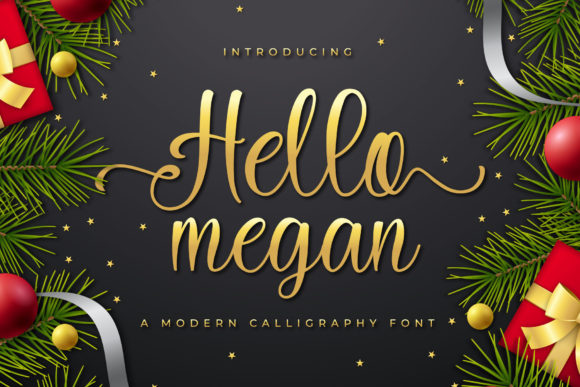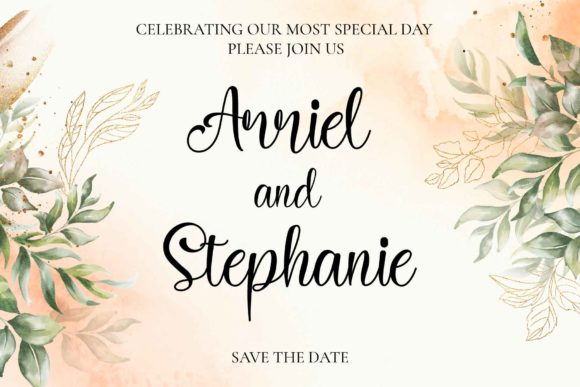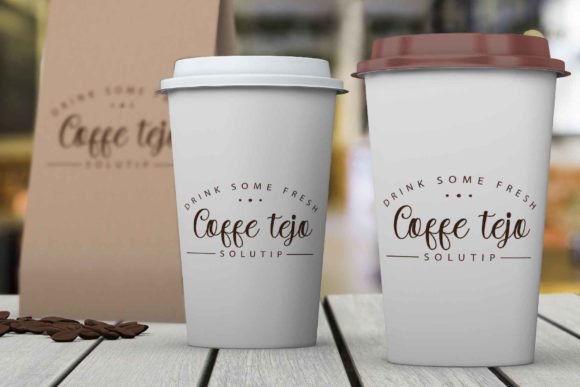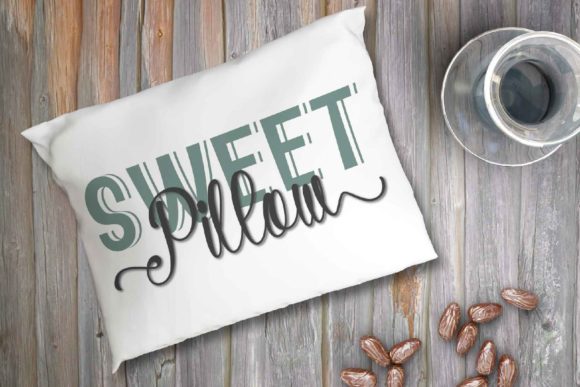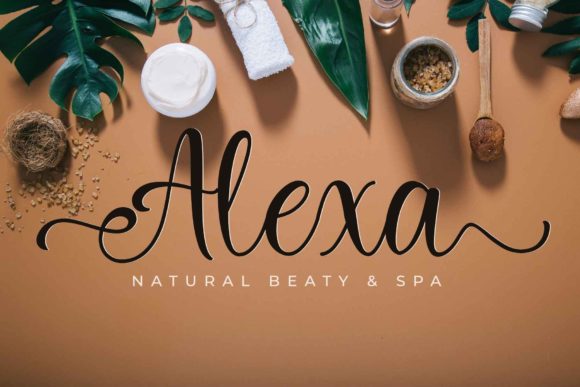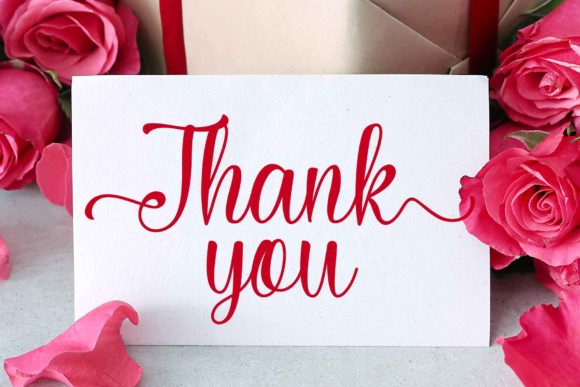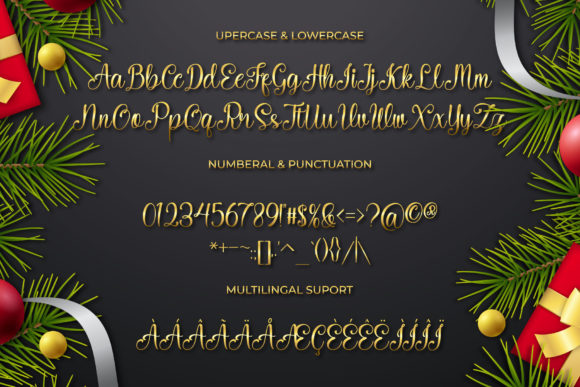
Hello Megan Font
About Hello Megan Font
Hello Megan is an incredibly distinct, delicate and timeless handwritten font. Not too thin and not too thick, balanced and varied, this font was designed to enhance the beauty of your projects.